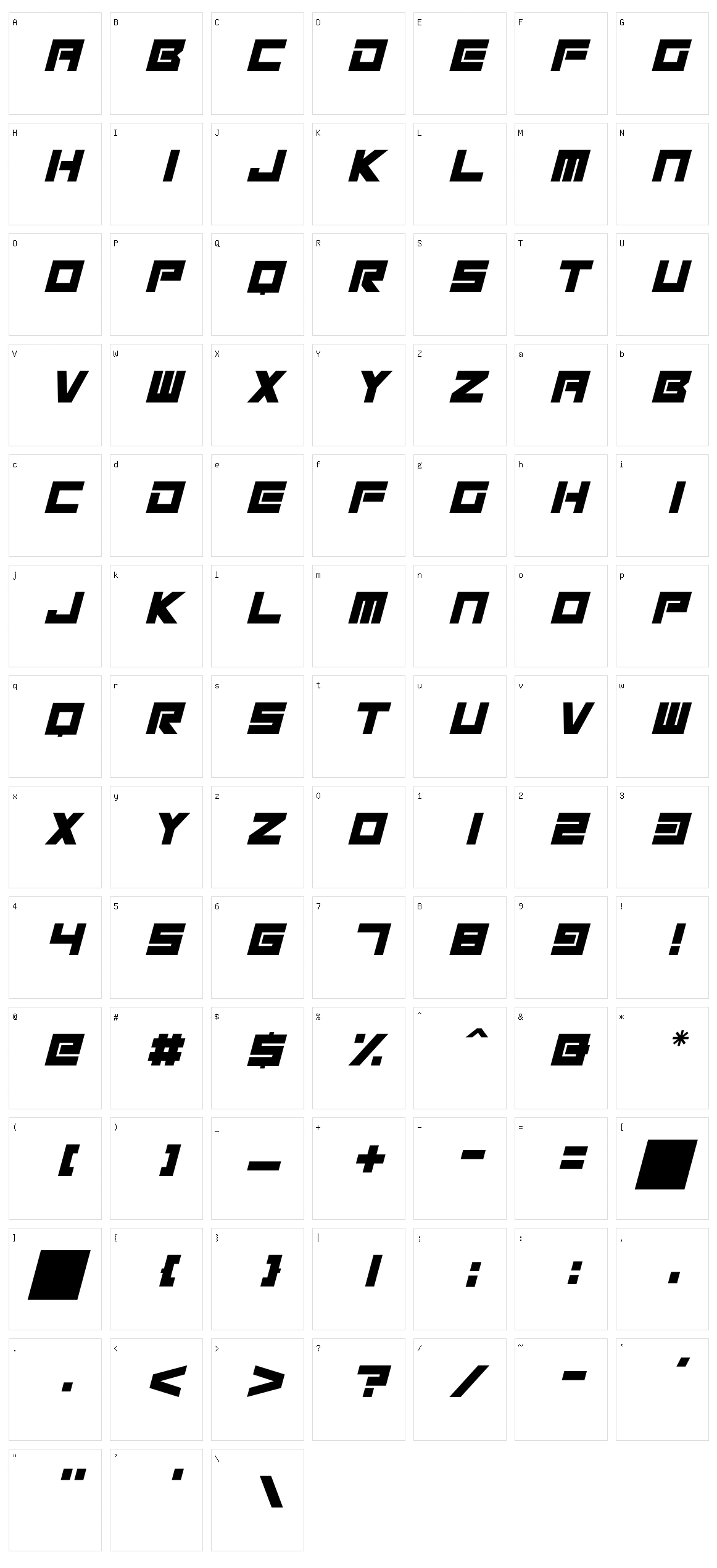
The free font Megatech is carefully designed by Hawtpixel, showcasing a thoughtful balance of creativity and usability and falls under the Square font style. When you download the ZIP file, it contains only 102.43 KB of font files, making it lightweight and quick to download. Please review the license details below to understand permitted usage and distribution rights. If license information is not available, we recommend using this font for personal projects only or contacting the author directly for commercial usage permissions.